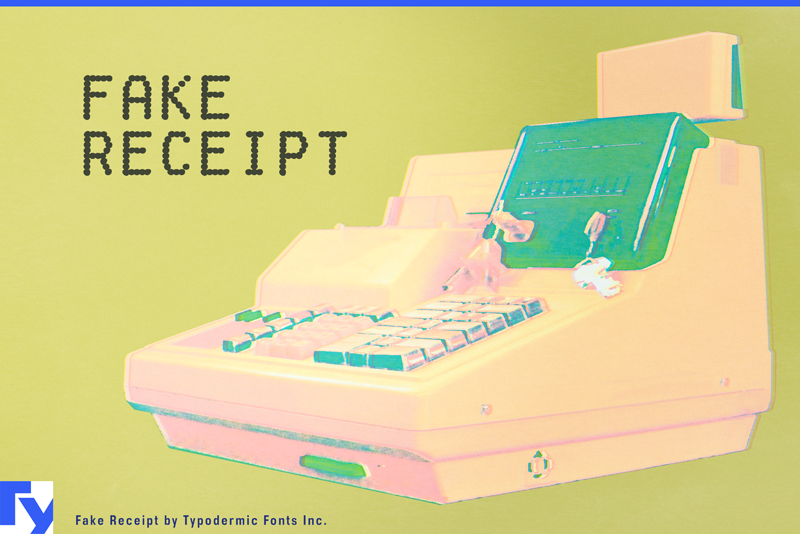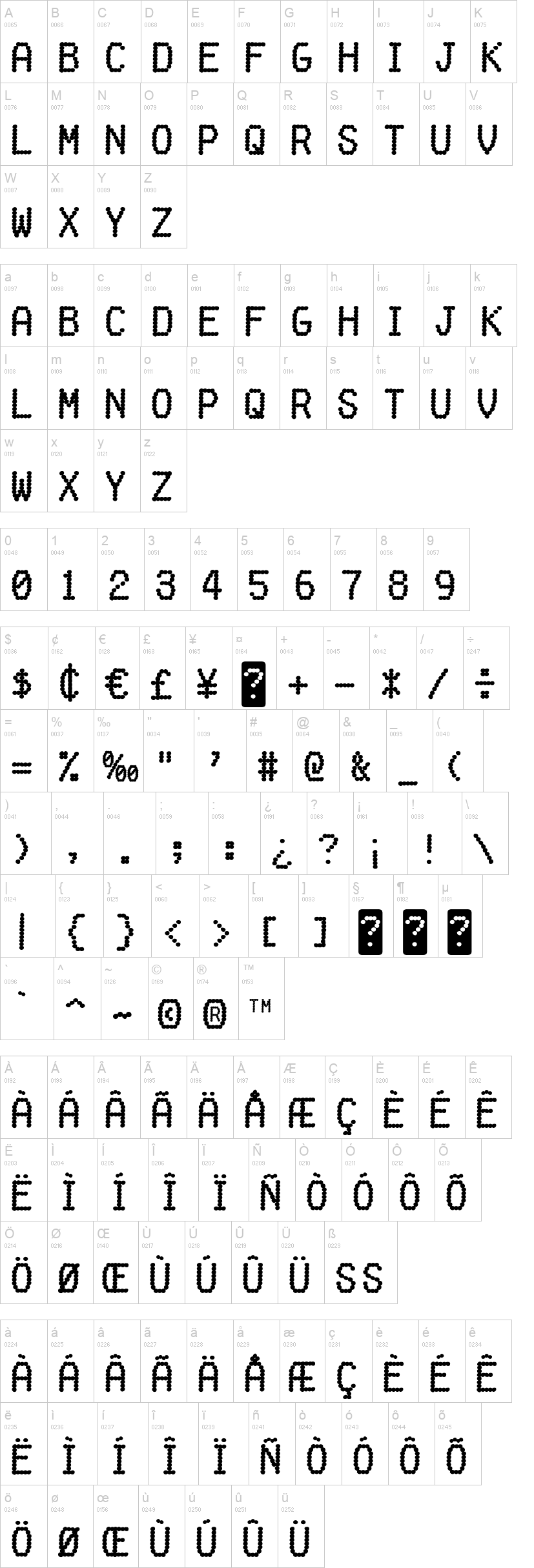
Note of the authorFake Receipt looks like it came from a standard 20th-century cash register. Its low-resolution letterforms will deliver your message speedily. Most Latin-based European writing systems are supported, including the following languages. Afaan Oromo, Afar, Afrikaans, Albanian, Alsatian, Aromanian, Aymara, Bashkir (Latin), Basque, Belarusian (Latin), Bemba, Bikol, Bosnian, Breton, Cape Verdean, Creole, Catalan, Cebuano, Chamorro, Chavacano, Chichewa, Crimean Tatar (Latin), Croatian, Czech, Danish, Dawan, Dholuo, Dutch, English, Estonian, Faroese, Fijian, Filipino, Finnish, French, Frisian, Friulian, Gagauz (Latin), Galician, Ganda, Genoese, German, Greenlandic, Guadeloupean Creole, Haitian Creole, Hawaiian, Hiligaynon, Hungarian, Icelandic, Ilocano, Indonesian, Irish, Italian, Jamaican, Kaqchikel, Karakalpak (Latin), Kashubian, Kikongo, Kinyarwanda, Kirundi, Kurdish (Latin), Latvian, Lithuanian, Lombard, Low Saxon, Luxembourgish, Maasai, Makhuwa, Malay, Maltese, Māori, Moldovan, Montenegrin, Ndebele, Neapolitan, Norwegian, Novial, Occitan, Ossetian (Latin), Papiamento, Piedmontese, Polish, Portuguese, Quechua, Rarotongan, Romanian, Romansh, Sami, Sango, Saramaccan, Sardinian, Scottish Gaelic, Serbian (Latin), Shona, Sicilian, Silesian, Slovak, Slovenian, Somali, Sorbian, Sotho, Spanish, Swahili, Swazi, Swedish, Tagalog, Tahitian, Tetum, Tongan, Tshiluba, Tsonga, Tswana, Tumbuka, Turkish, Turkmen (Latin), Tuvaluan, Uzbek (Latin), Venetian, Vepsian, Võro, Walloon, Waray-Waray, Wayuu, Welsh, Wolof, Xhosa, Yapese, Zapotec Zulu and Zuni.